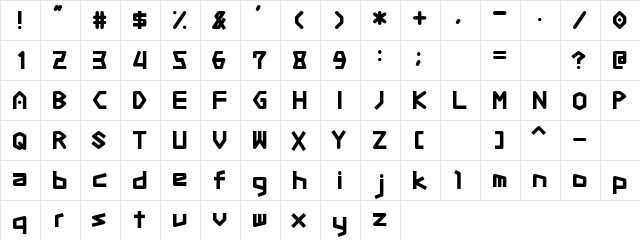
Cosmos0 Regular
Design Context for Cosmos0 Typeface
Cosmos0 offers clean, dependable letterforms without strong stylistic allegiance, making it a practical choice for designers who need flexibility.